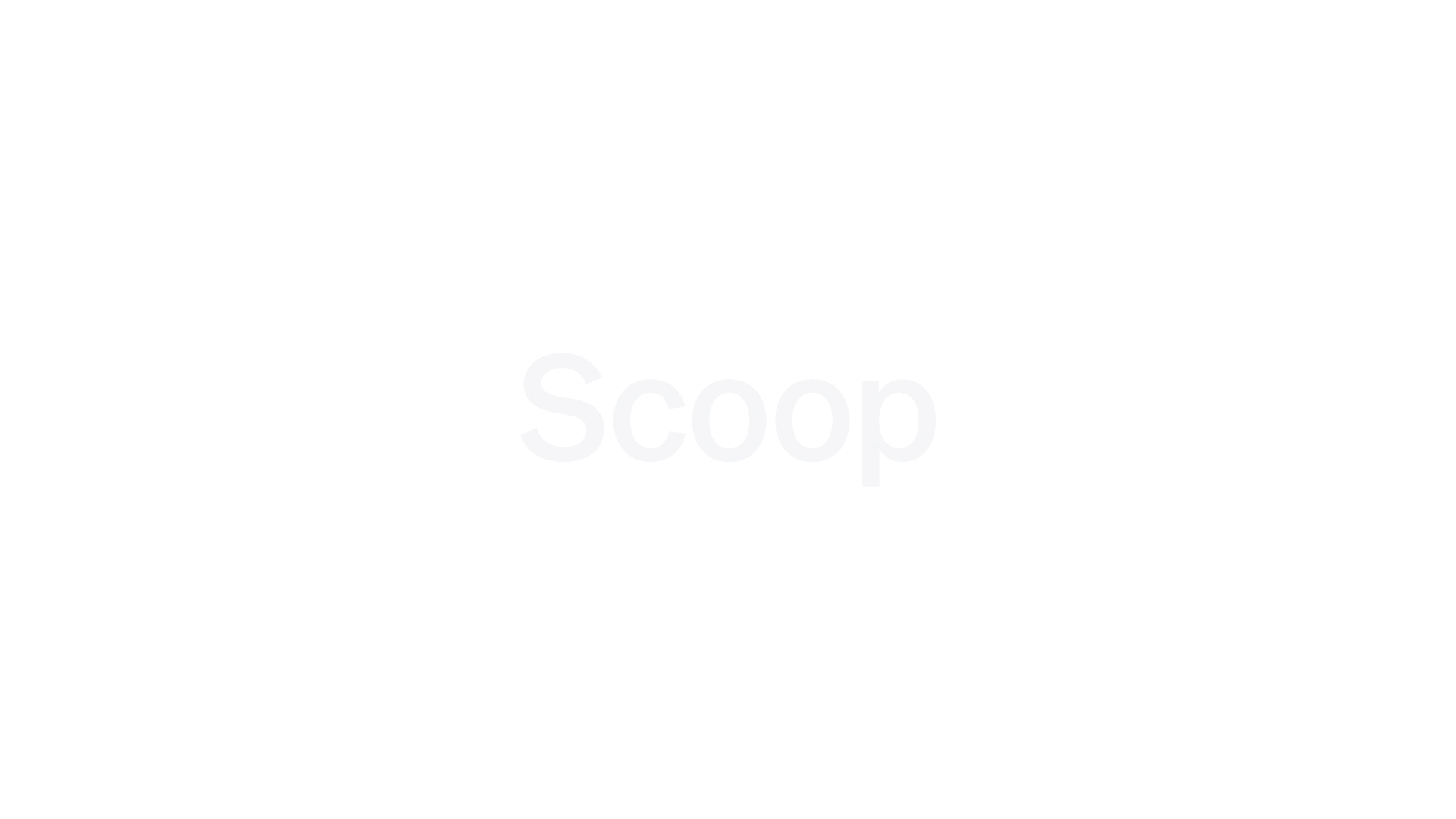
Scoop
Scoop was originally designed as DN Sans for Dagens Nyheter, a prominent Swedish daily newspaper. Launched in 2023, it draws inspiration from versatile Grotesque typefaces, balancing uniqueness and simplicity. The typeface is known for its extensive stylistic sets and is suitable for both print and digital applications.